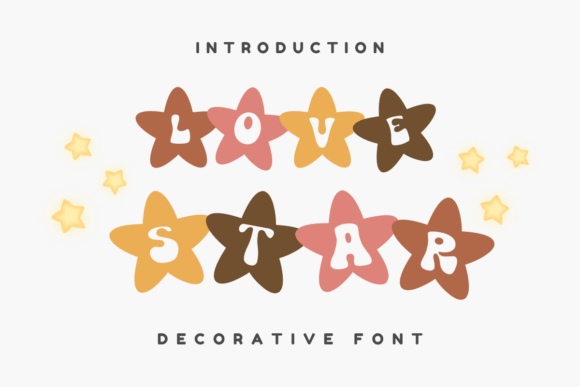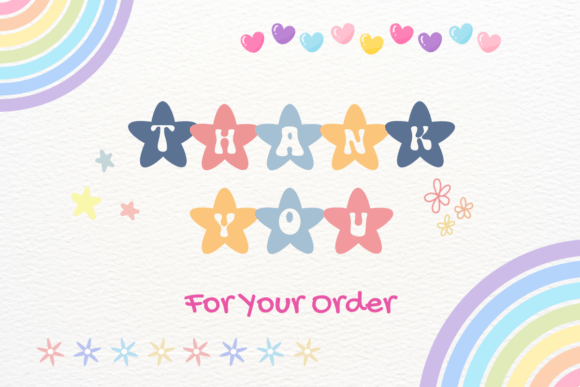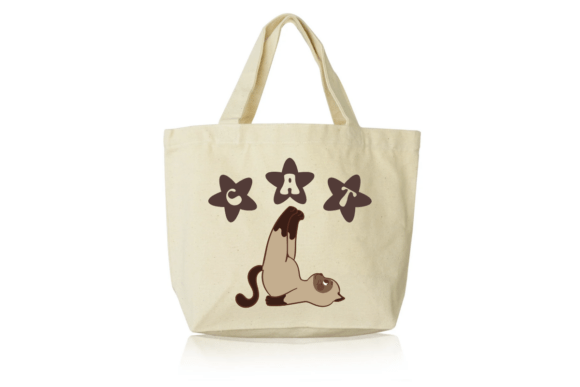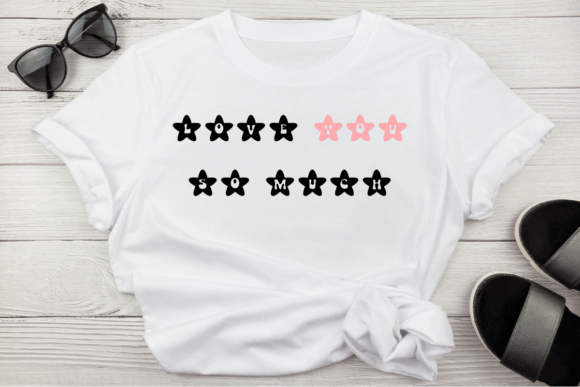
Love Star Font
About the Love Star Font
Unleash your creativity with Love Star Font, a versatile font perfect for a wide range of applications. Love Star is a decorative font. You can use it for taking notes, writing a diary, or making greeting cards. However, you can still use it for other designs, such as banners, content, mugs, cards, shirts, stationery, social media posts, and more!
Love Star’s decorative nature makes it ideal for headlines, short text blocks on posters or packaging, and social media graphics where a touch of whimsy is desired. It excels in branding projects focused on playful or romantic themes, such as children’s products or wedding stationery. However, its low x-height and ornate details make it unsuitable for body copy or UI elements; legibility suffers in extended use.
Pairing Love Star with a clean sans-serif like Open Sans for body text creates a strong contrast, allowing the decorative font to shine without overwhelming the reader. For a more sophisticated look, consider pairing it with a classic serif like Garamond or a modern geometric sans-serif such as Montserrat.
The Love Star font possesses a charming, slightly romantic personality. Its energy is best described as playful yet elegant, making it a good choice for brands aiming for a friendly and approachable image.